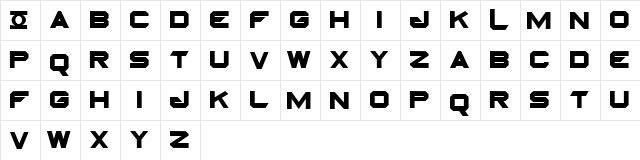
GREEN LANTERN MOVIE Regular
| Foundry | P. A. Vannucci |
| Designer | P. A. Vannucci |
Design Context for GREEN LANTERN MOVIE Typeface
GREEN LANTERN MOVIE is a composed and adaptable typeface that performs quietly and consistently across a wide range of design contexts.